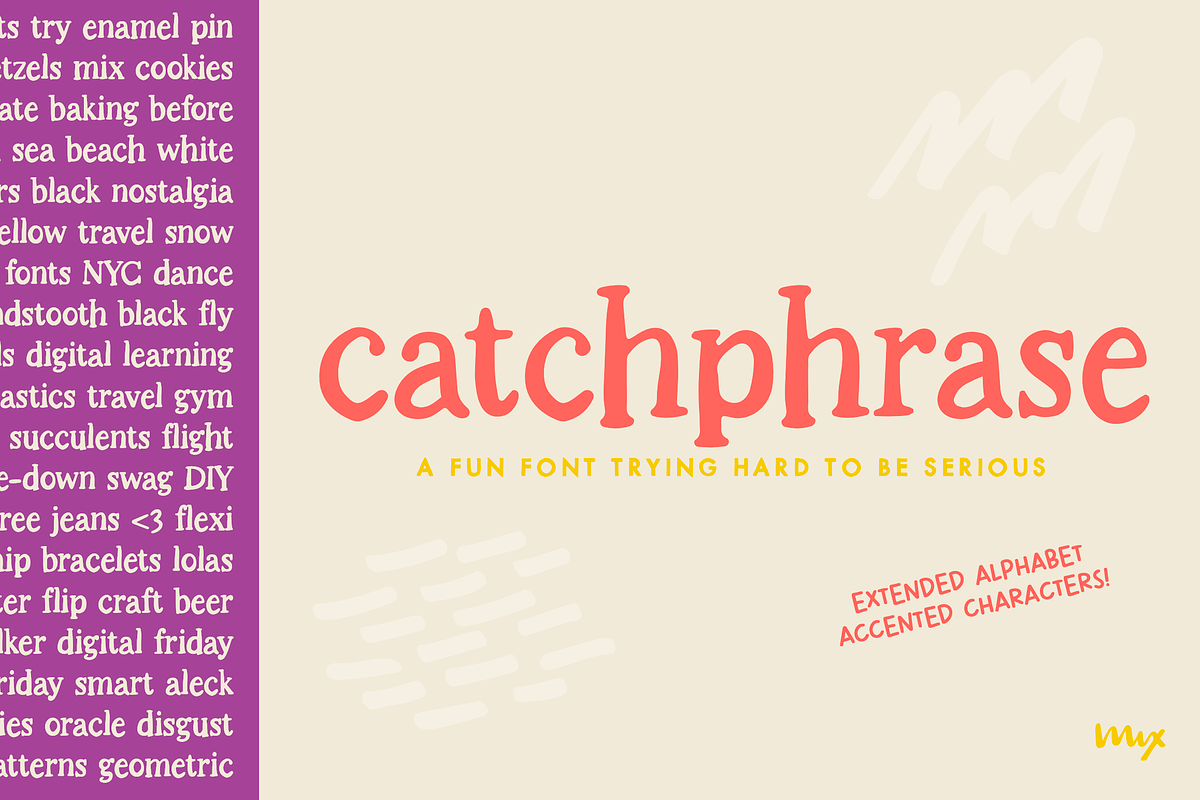
Catchphrase — A Fun Serif Free Download
Catchphrase — A Fun Serif Font Free Download
Please note, to use this font for commercial purposes, you must purchase the full version. Catchphrase is a playful and stylish serif font that combines fun, quirky letterforms with a bold, modern design. Perfect for logos, branding, posters, invitations, and creative projects, this font adds a lighthearted and energetic touch to your work. Whether you're designing for a fun event, a lively brand, or a creative marketing campaign, Catchphrase brings personality and charm to your designs. Test it out and enjoy free download access for personal use. Experience the lively style of Catchphrase — A Fun Serif Font Free Download before purchasing the commercial license. Add a playful, bold touch to your designs with Catchphrase.